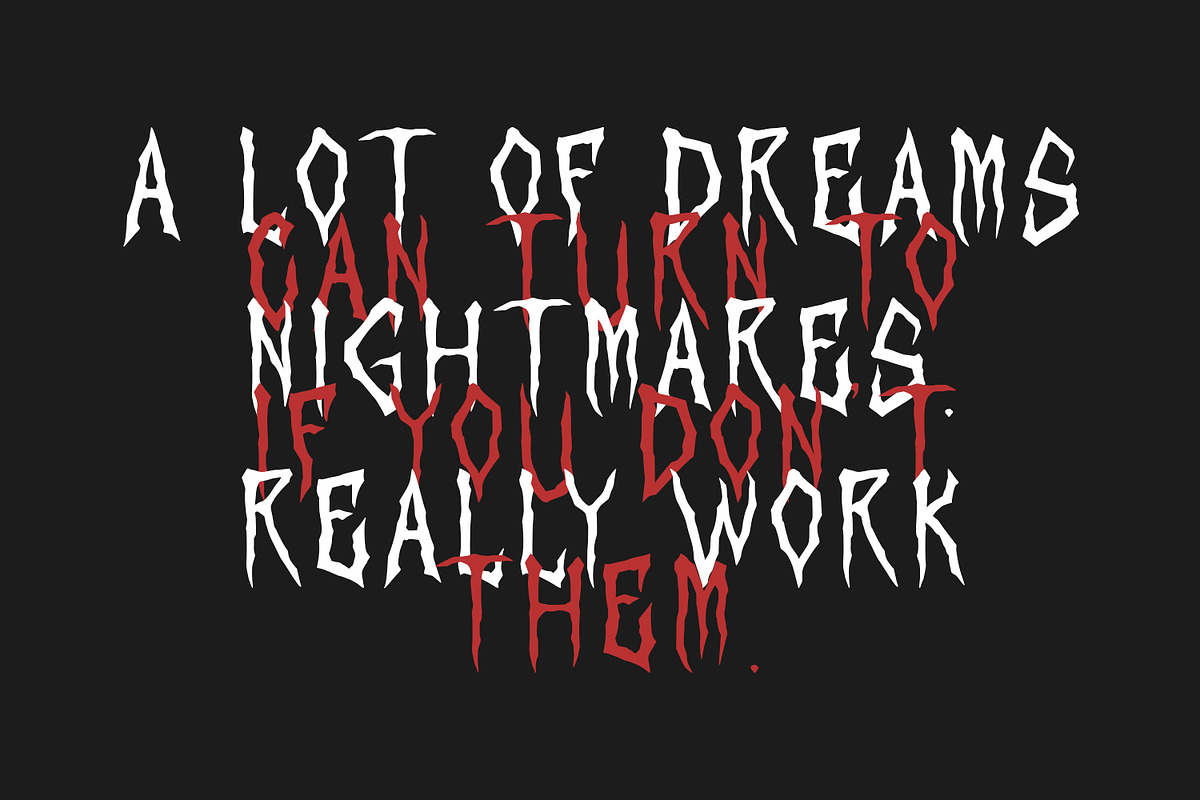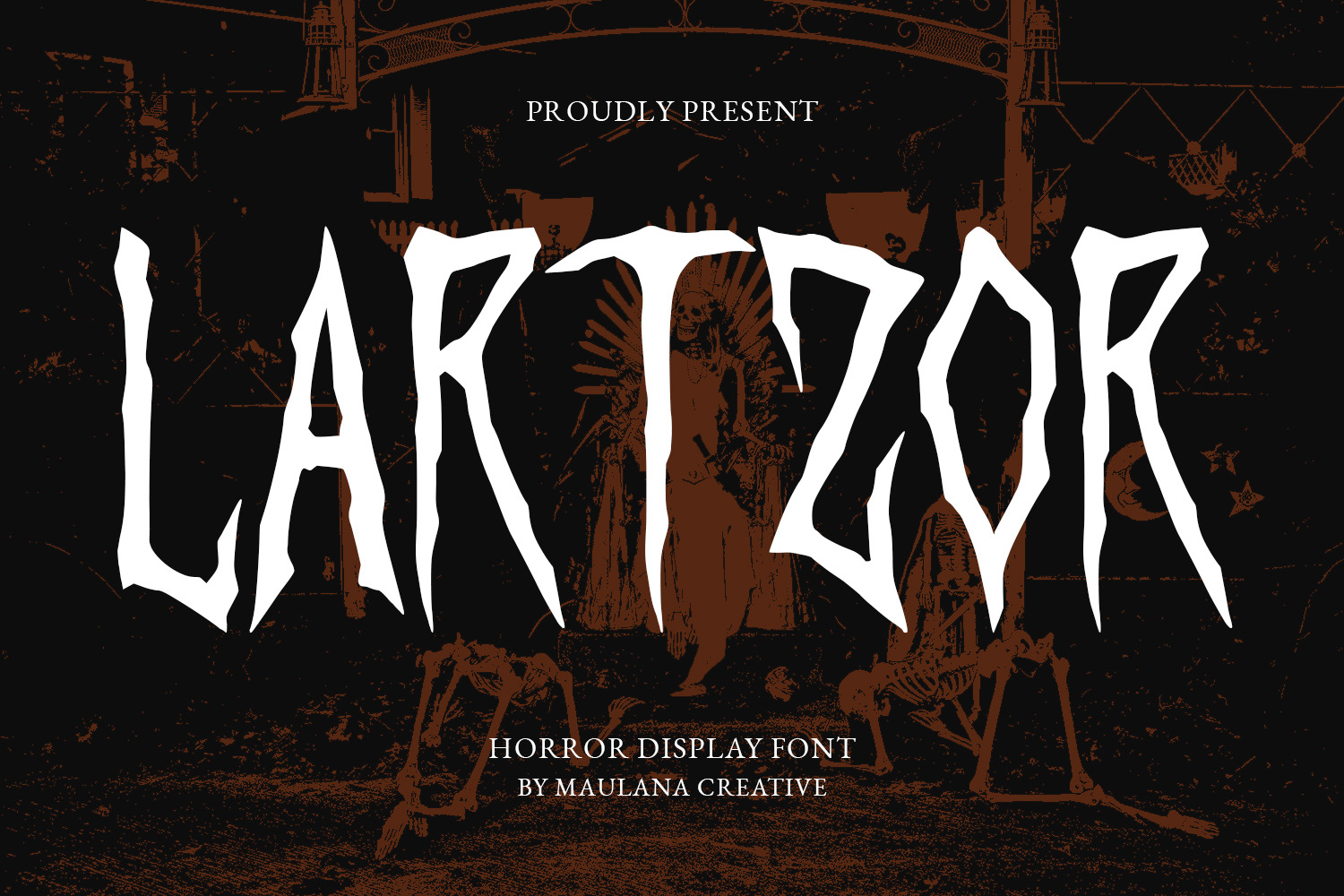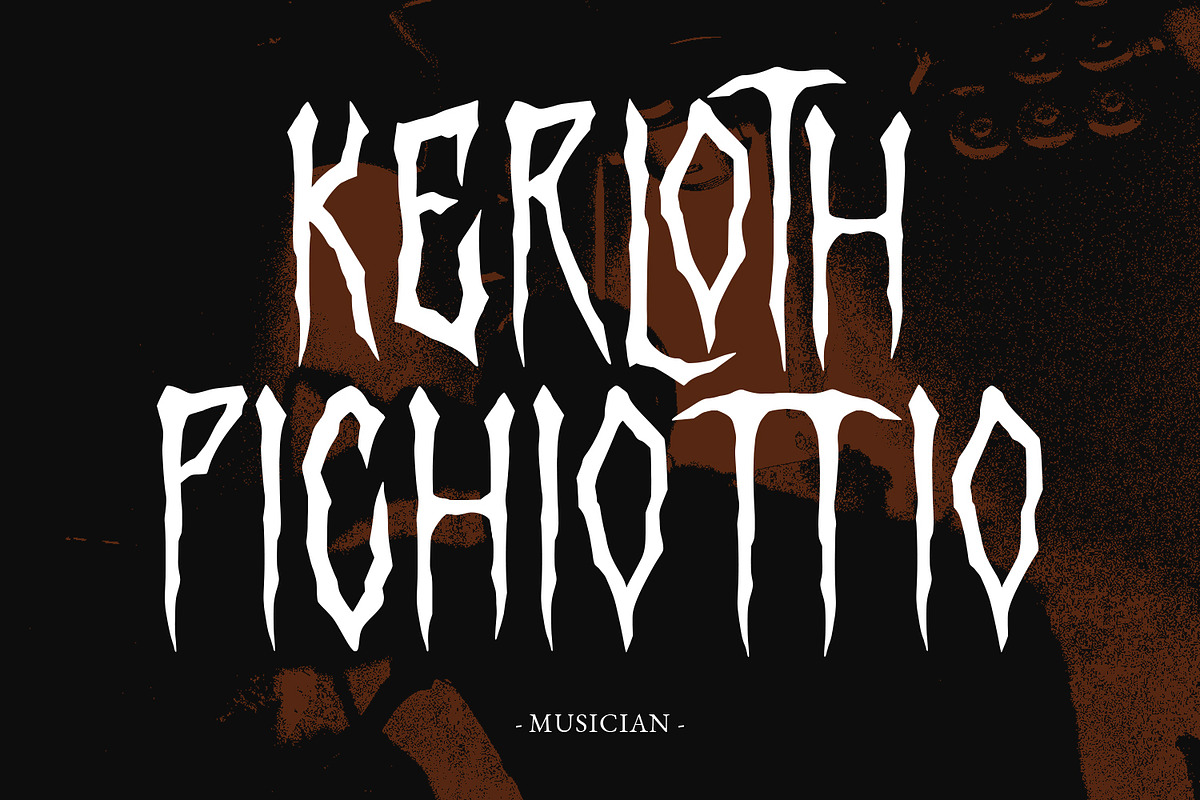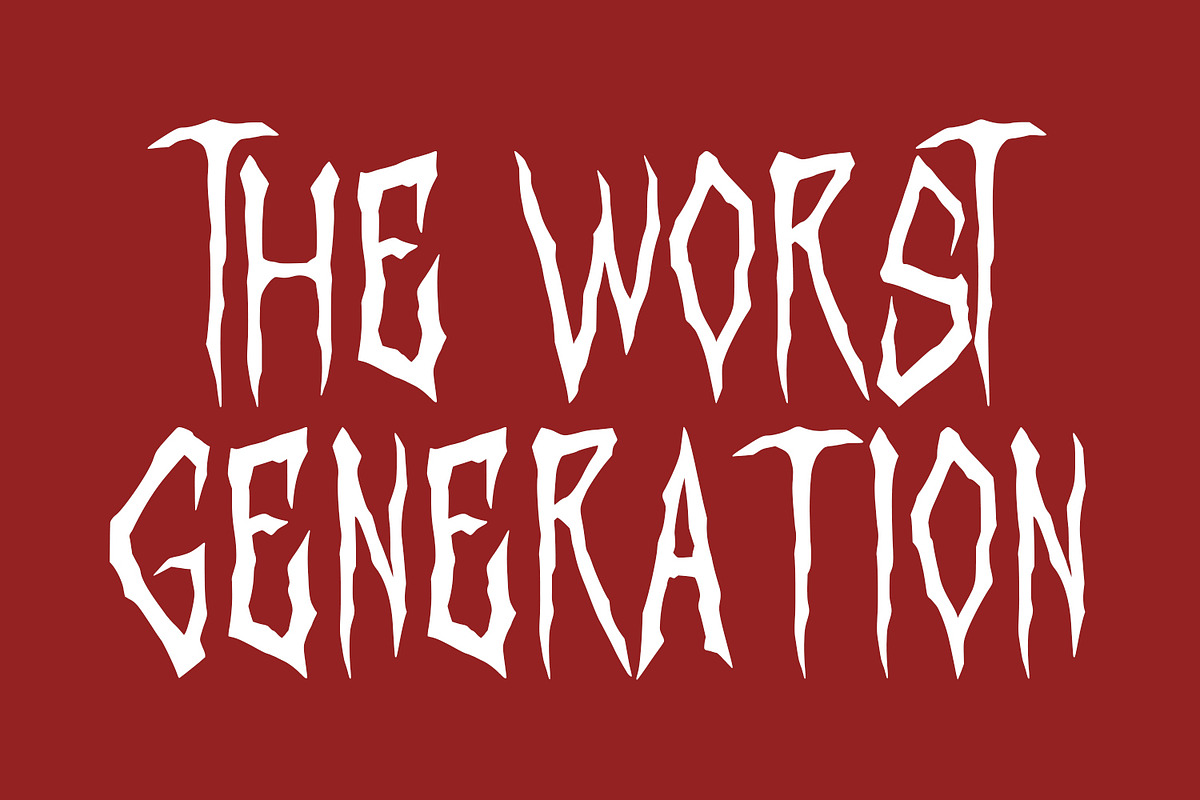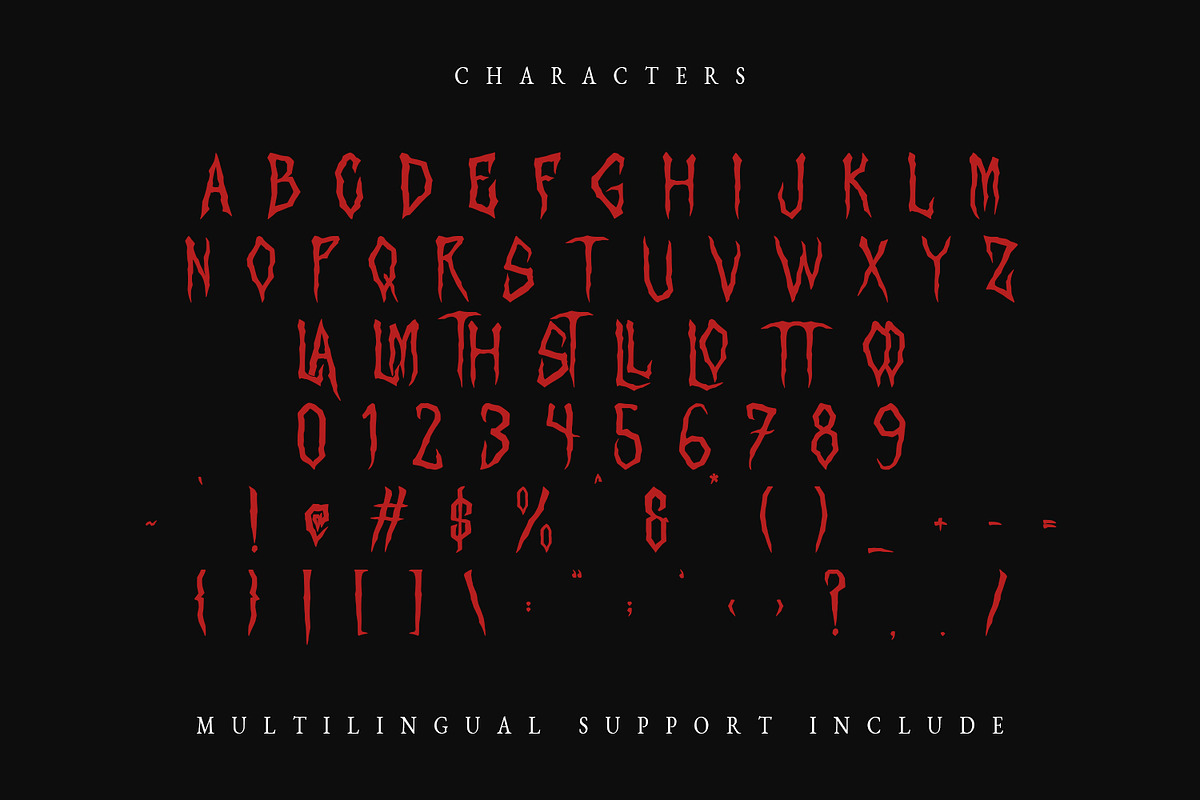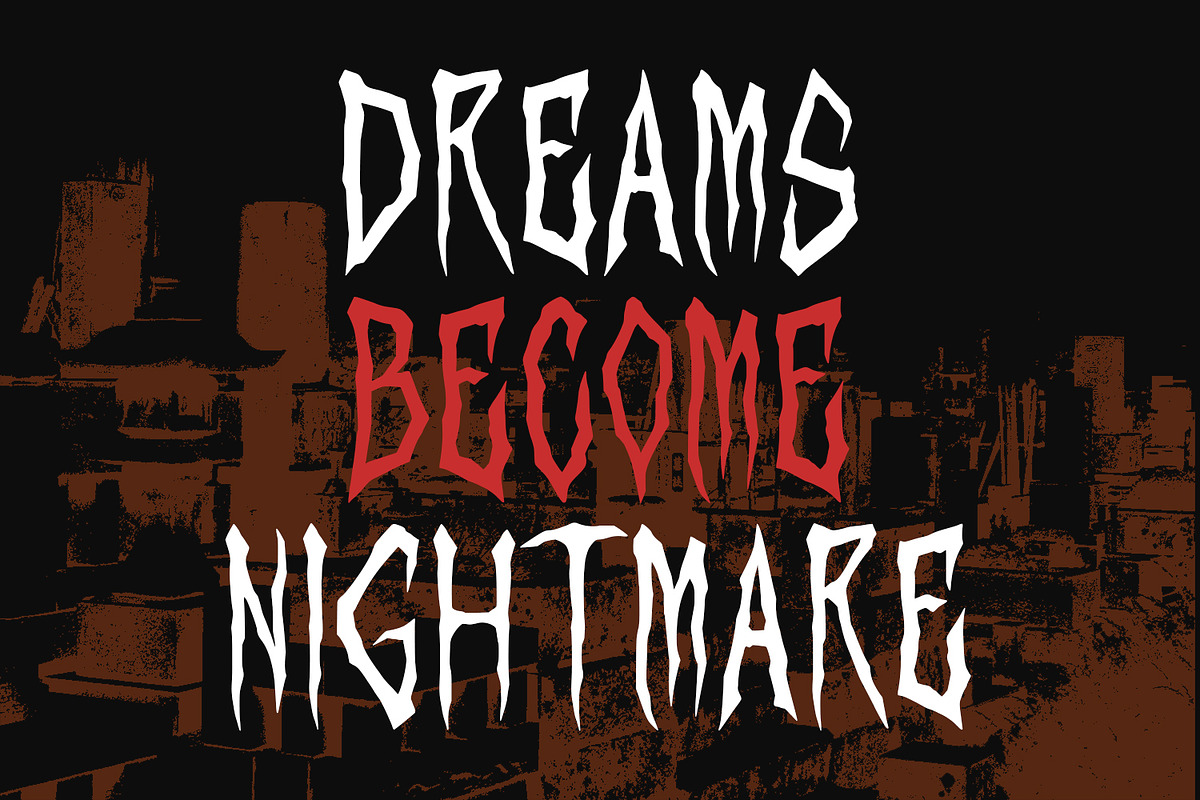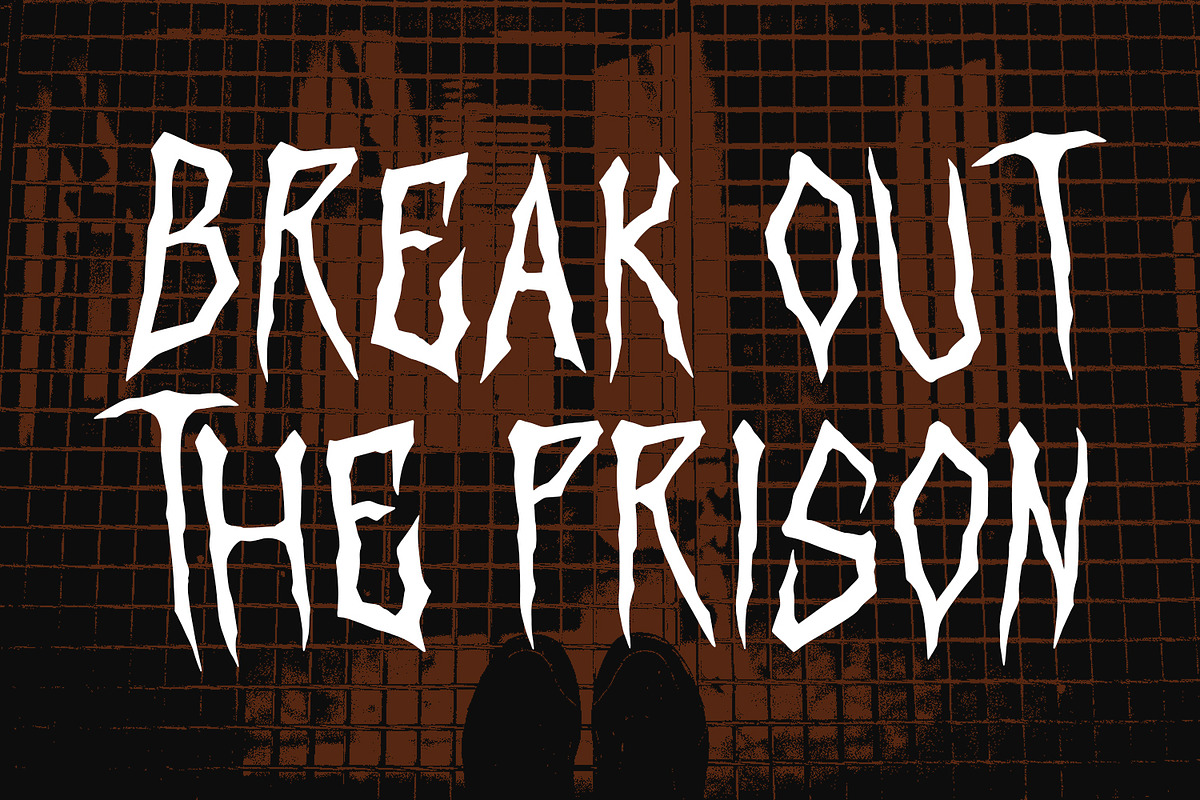
Lartzor Horror Display Font
Give your designs an authentic brush handcrafted feel. "Lartzor Horror Display Font" is perfectly suited to signature, stationery, logo, typography quotes, magazine or book cover, website header, flyer, clothing, branding, packaging design and more.